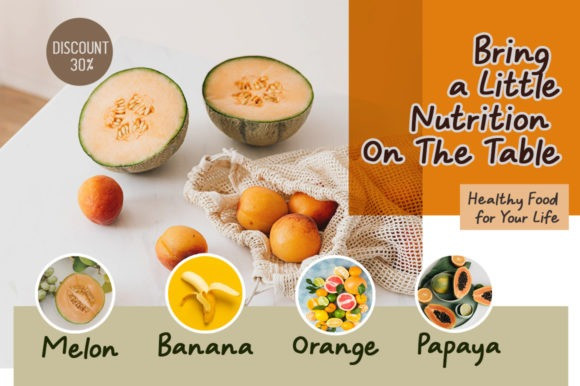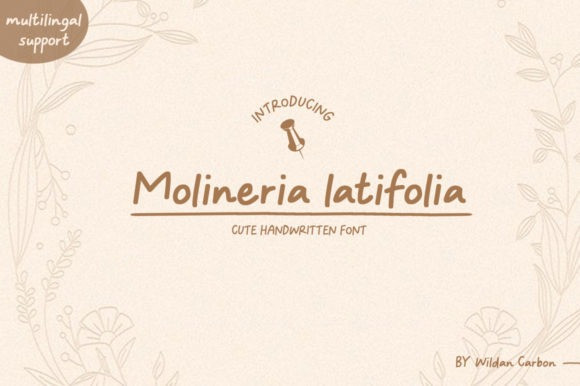
Molineria Latifolia Font
Molineria Latifolia Font is a handwritten condensed font with a great love for details. It is perfect for adding an unique and individual look to each of your creations.